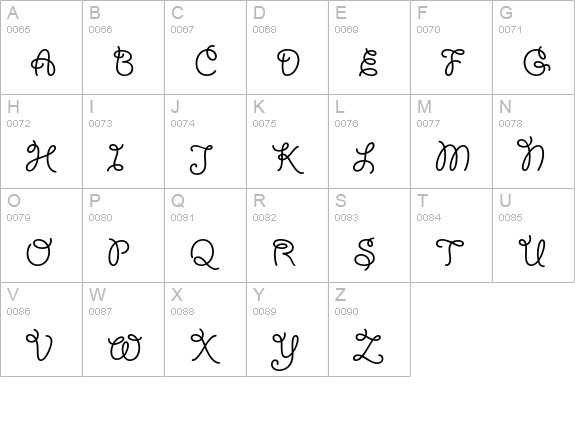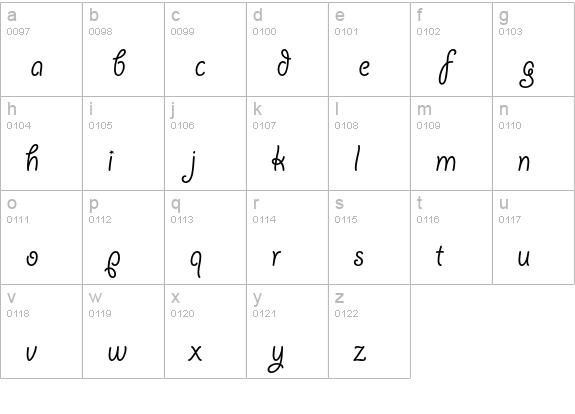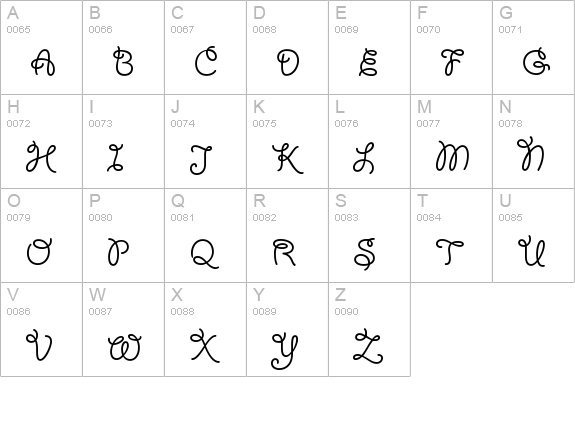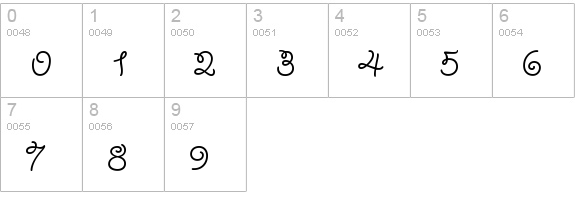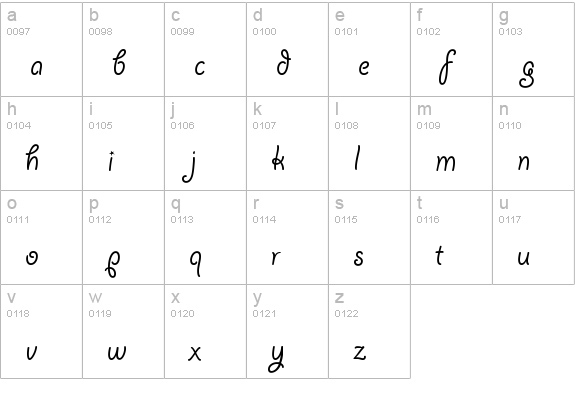
Giddyup Font Details
Giddyup font is a whimsical and playful typeface that exudes a sense of fun and energy. With its charming curves and bold strokes, this font is perfect for adding a touch of lightheartedness to your designs. Whether you're creating invitations, posters, or branding materials, Giddyup font will bring a sense of joy and creativity to your projects. The best part? Giddyup font is available for free download at FontsMarket.com. Simply head over to the website and start using this delightful font in your designs today. Let your creativity run wild with Giddyup font!